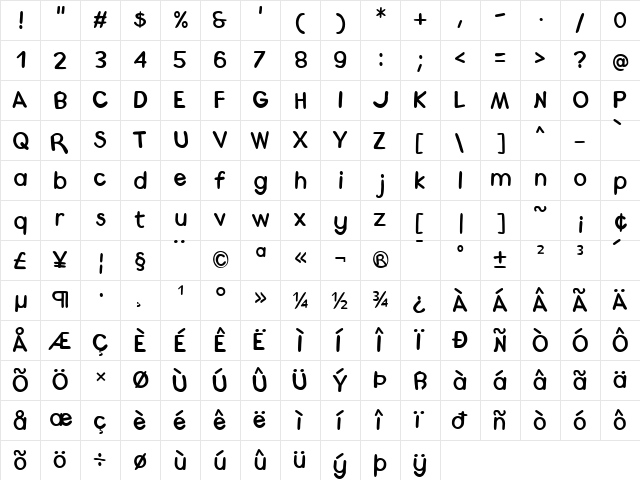
Medrano Regular
Design Context for Medrano Typeface
Medrano offers clean, dependable letterforms without strong stylistic allegiance, making it a practical choice for designers who need flexibility.